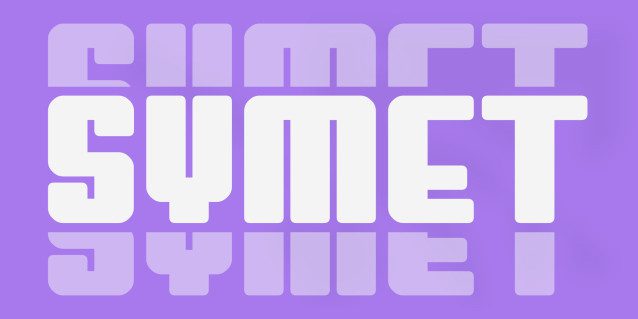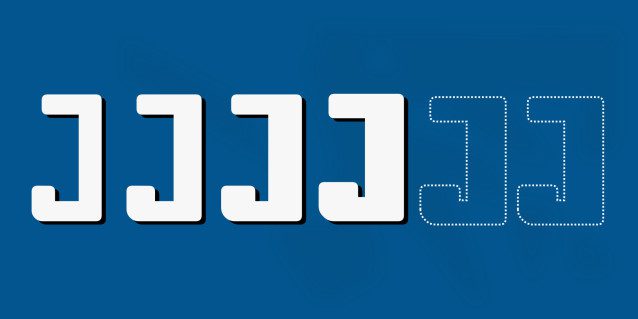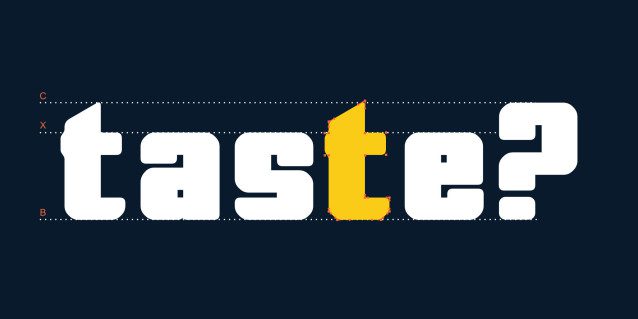
Symet Rounded Font
Symet Rounded is a bold geometric display typeface characterized by its symmetry and strength. With smooth corners and solid strokes, it is ideal for creating eye-catching headlines, logos, and experimental layouts. Transform your words into a striking visual statement with Symet Rounded.
Features:
– All letterforms are meticulously designed for impactful display use.
– Geometric construction with perfectly symmetrical proportions.
– Smooth, rounded cuts complemented by wide, solid strokes.
– A bold weight that guarantees maximum visibility.
– Multilingual support for enhanced versatility.
Perfect for branding, web design, and editorial projects, Symet Rounded elevates ordinary text into a captivating visual experience. This typeface is not just about reading; it’s about making a statement that demands attention.